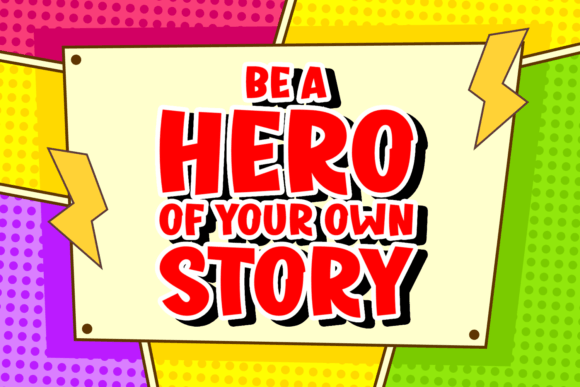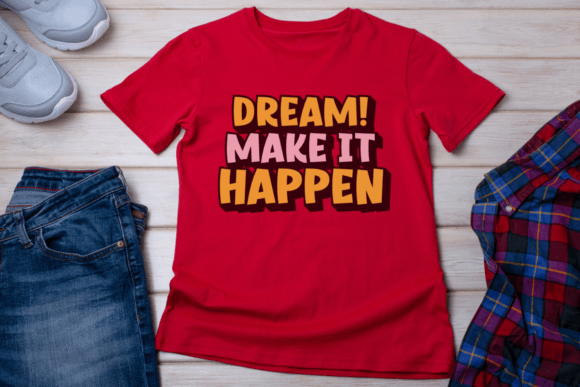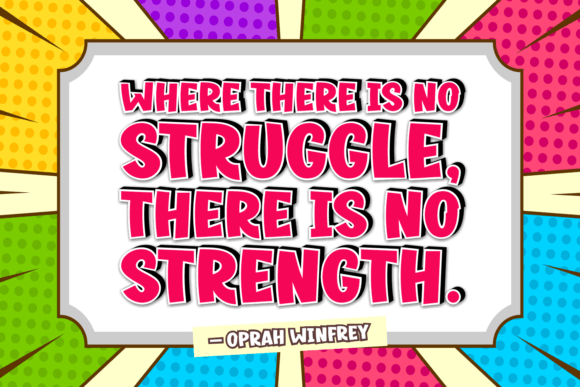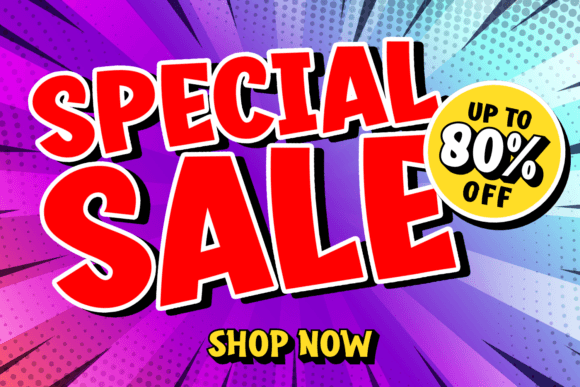
Introduction to Global Heroes Font
Global Heroes is a bold and dynamic superhero display font, designed to capture the larger-than-life energy and excitement of superhero themes.
With strong, impactful letterforms and a dramatic style, this typeface exudes power, confidence, and action, making it perfect for projects that need a bold statement With its bold, high-impact design, Global Heroes is perfect for headlines, titles, logos, and any display use.